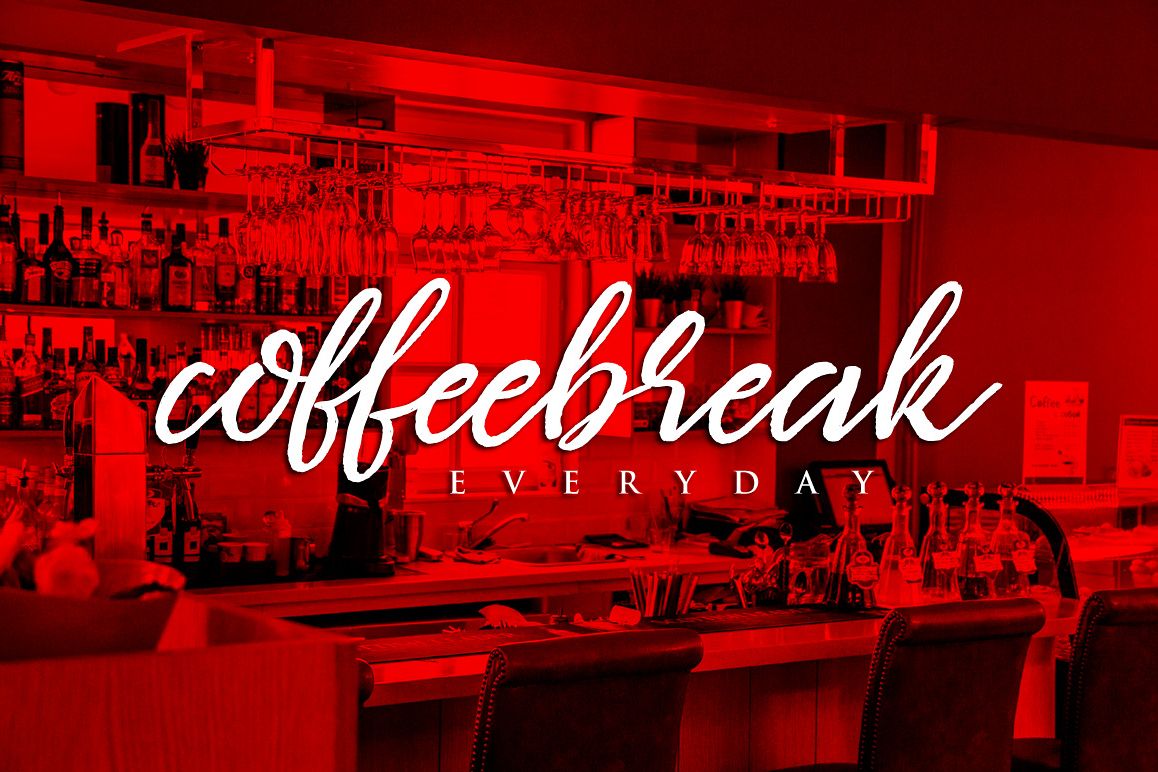
Missaki Typeface Italic Version
Missaki Typeface Italic
Missaki Typeface Italic Version a handmade font awesome, new fresh & modern script style. Can used for anything from promotional material and handwritten quotes, to product packaging, labels, logo newsletters, posters, merchandise and branding projects.
Missaki Typeface Italic Version Features :
• Number
• Punct
• Ligature (ee, ff, jj, ll, oo, rr, ss, tt)